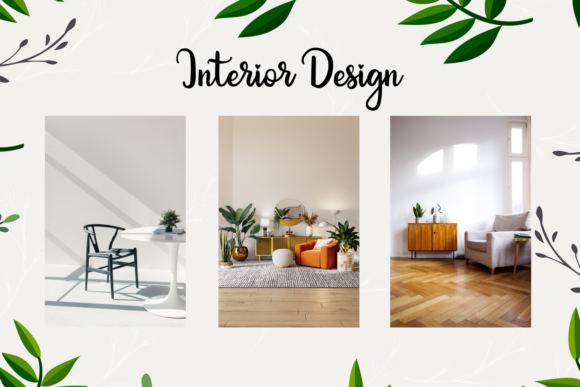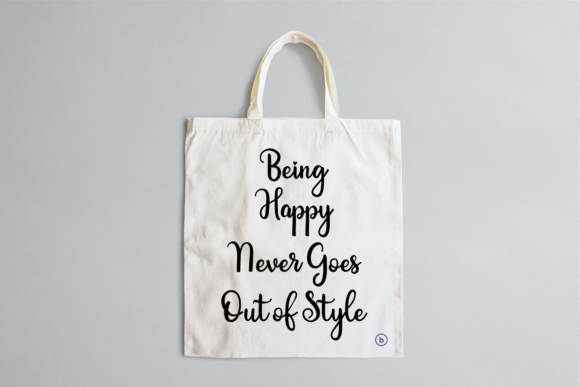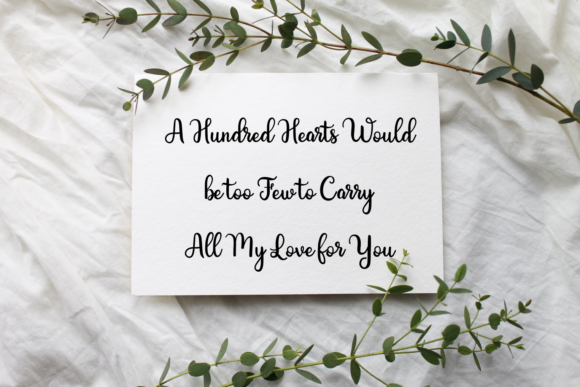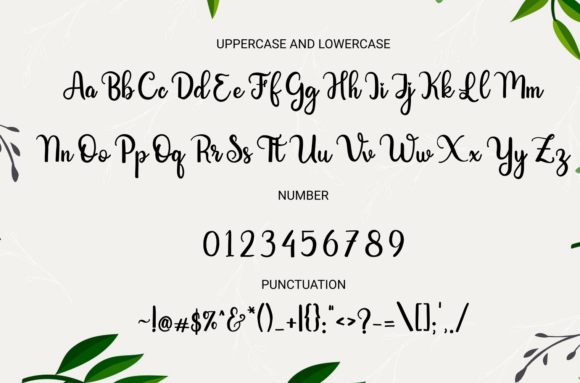
About Simple Writing Font
Introducing Simple Writing, a delicate, elegant, and flowing handwritten font that brings a touch of sophistication to your creative endeavors. With its beautiful and well-balanced characters, this font is versatile and matches a wide pool of designs. Add Simple Writing to your most creative ideas and witness how it brings them to life with grace and style.
The charm of Simple Writing lies in its delicate and flowing script, which imparts a sense of elegance to your text. Whether you’re working on invitations, branding, product packaging, or any design project, this font becomes a key element that enhances the visual appeal of your creations.
The versatility of Simple Writing allows it to adapt seamlessly to various design contexts. Its well-balanced characters make it suitable for a range of applications, adding a touch of sophistication to your projects. From delicate wedding invitations to stylish branding, this font elevates the overall aesthetic.
Adding Simple Writing to your creative ideas is like breathing life into them. The script’s flowing nature brings a sense of movement and grace, making it a valuable asset for designers seeking a font that adds a touch of refinement to their work.
In summary, Simple Writing is not just a font; it’s a delicate and elegant handwritten script that enhances your most creative ideas. Let it be the stylish companion that brings a sense of sophistication to your invitations, branding, and various design projects, ensuring they come alive with grace and style.